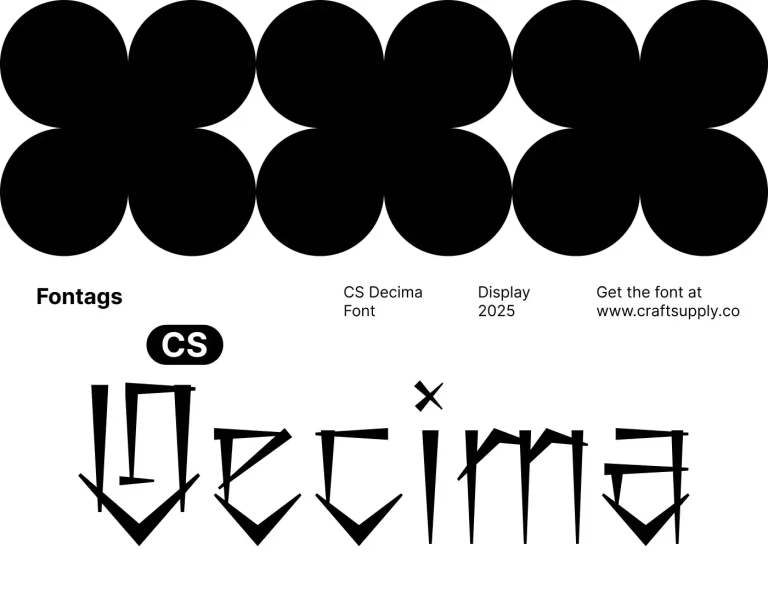
CS Decima
CS Decima is a bold graffiti display font that brings the raw, expressive energy of street art to your designs. Featuring dynamic curves, irregular shapes, and exaggerated strokes, it mimics the authentic look of graffiti, capturing the rebellious and creative spirit of…
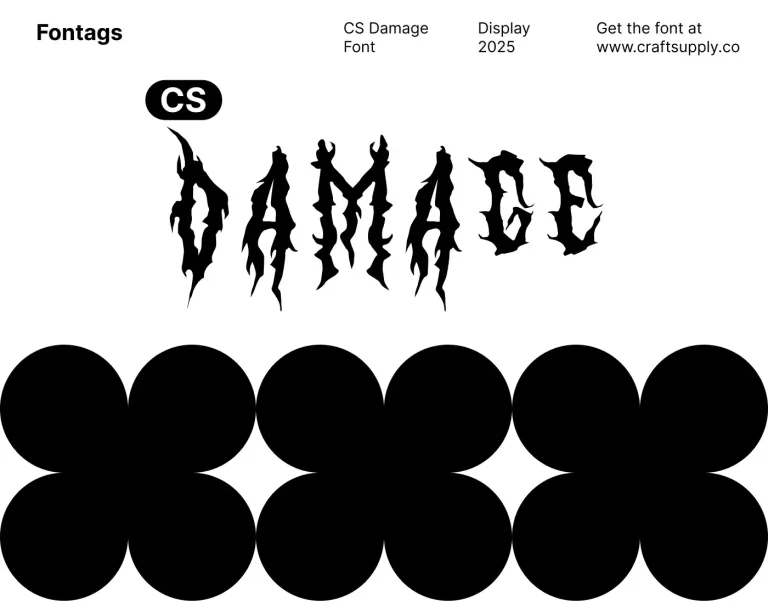CS Dario
CS Dario is a modern serif font that features bold, substantial strokes, combining strength with elegance. Its thick letterforms and prominent serifs create a commanding presence, making it an excellent choice for professional applications.
CS Damage
CS Damage – Black Metal Font is a fierce display typeface that channels the intense, raw energy of the black metal music genre. With sharp, jagged, and fragmented letterforms, this font embodies the aggressive and rebellious spirit of underground culture.
CS Daine Mono
This modern sans-serif font that showcases a clean, monospaced, and geometric design. Each character is crafted with equal width, resulting in a neat and organized appearance that enhances readability. This thoughtful design makes it an ideal choice for technical contexts, such as…
CS Daily
CS Daily is a modern serif font characterized by exceptionally thin strokes that deliver a refined and elegant aesthetic. The slender letterforms and delicate serifs combine to create a sophisticated appearance, making this font ideal for high-end branding and luxury editorial projects.
CS Abuela
CS Abuela is a modern display serif font with strong Art Nouveau influences, expertly combining flowing, decorative curves with elegant serifs. The organic shapes and intricate detailing exude timeless beauty and sophistication, creating a font that feels both classic and contemporary.
CS Action
CS Action is a modern sans-serif font that embodies a clean, contemporary aesthetic with its minimalist design. The font features sleek, unadorned letterforms that provide a polished and sophisticated appearance, enhancing readability and versatility across various applications.
CS Adley
CS Adley – Elegant Font is a sophisticated serif typeface that blends classic elegance with a sleek modern touch. Featuring elongated serifs and refined proportions, this font radiates a sense of luxury and professionalism. Its smooth curves and sharp details create a…
CS Aither
CS Aither is a distinguished display font crafted in the iconic blackletter style, often known as “Gothic” or “Old English.” This font is characterized by its bold letterforms, sharp angles, and intricate ornamental details, creating a striking and dramatic impression that evokes…
CS Alston
CS Alston is a serif font with bold styling that radiates elegance and charm. Its strong yet smooth letter design exudes sophistication, making it perfect for projects that demand a luxurious and refined look. The bold character of the font adds weight…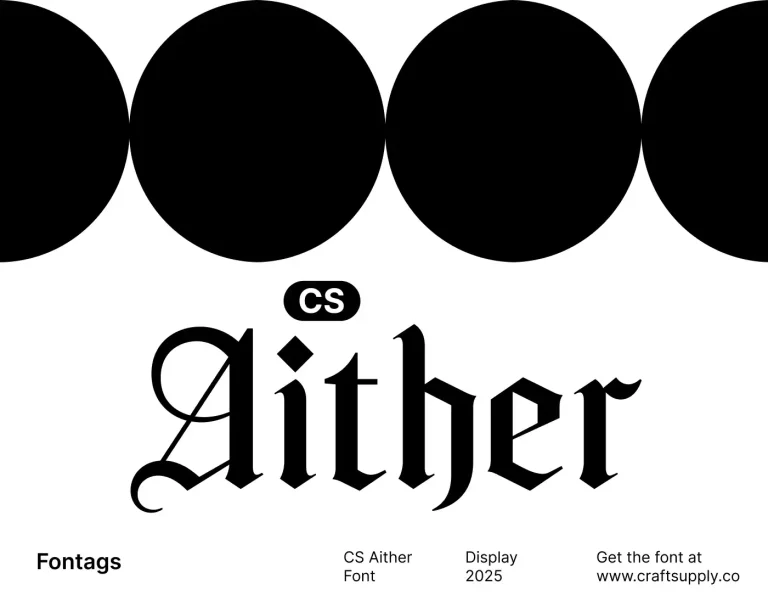